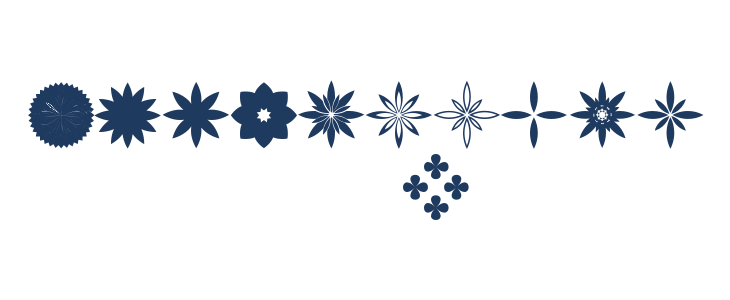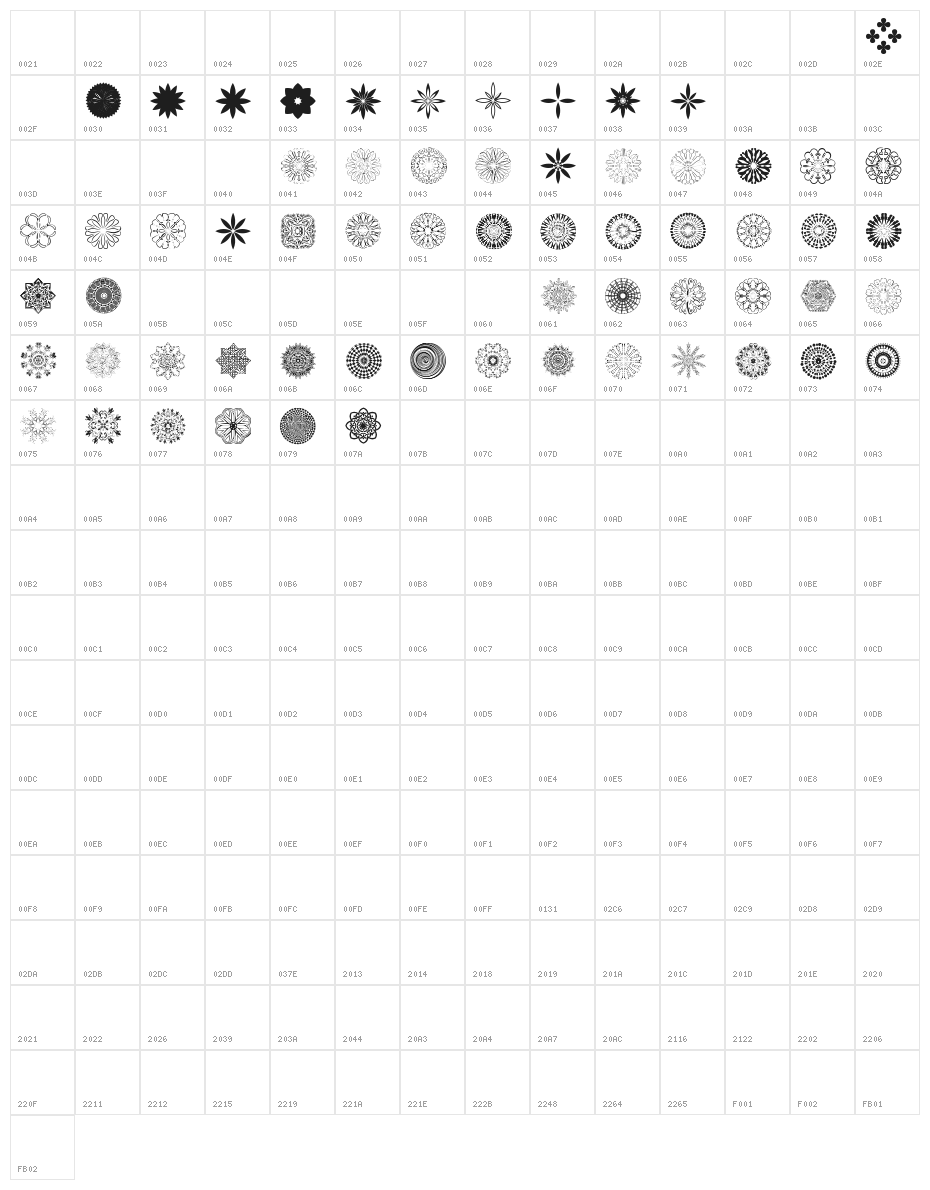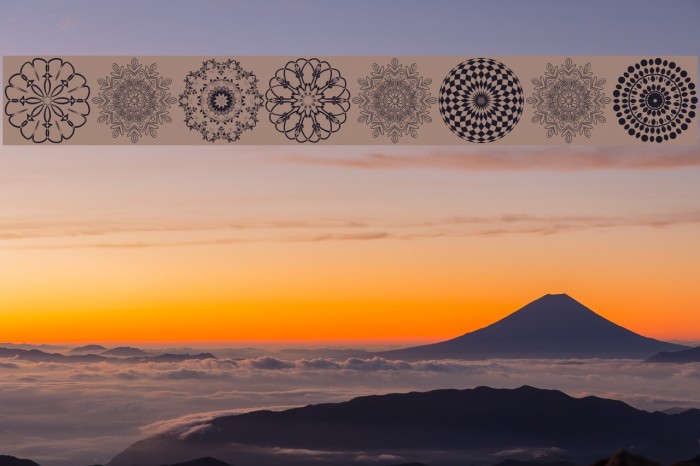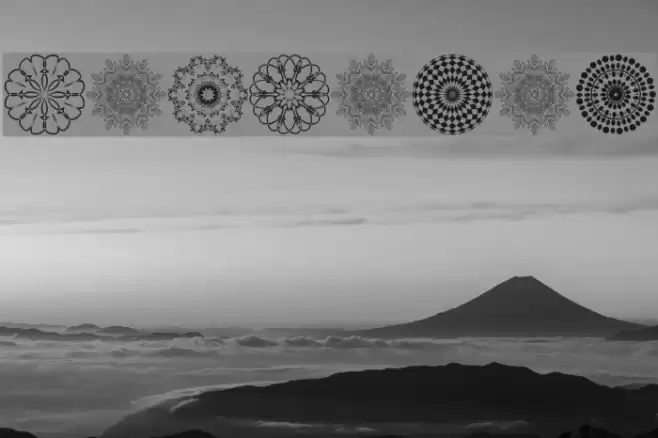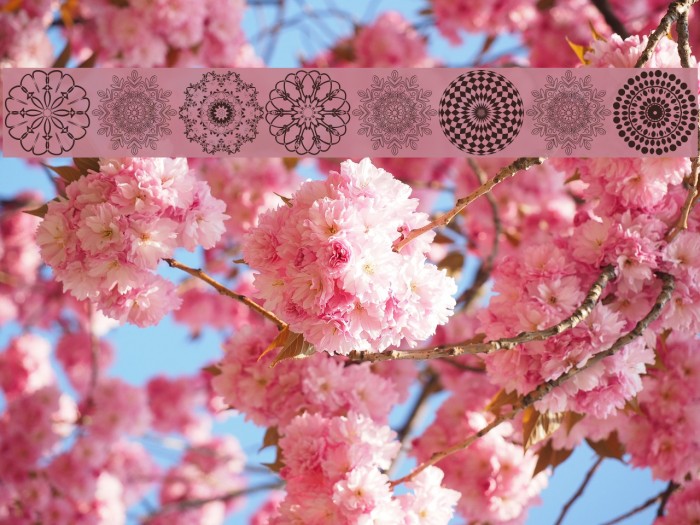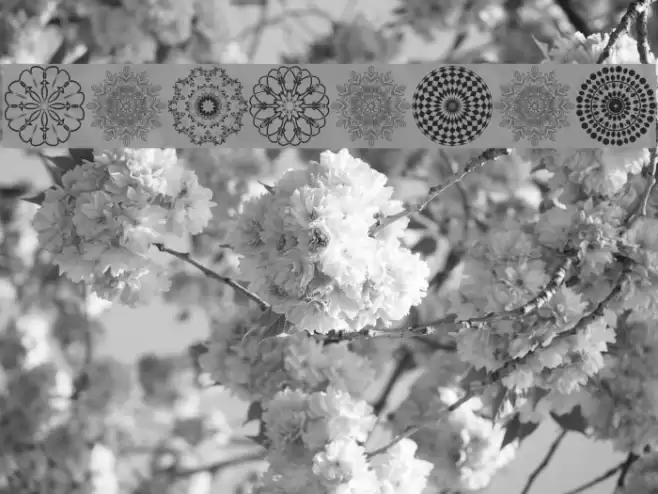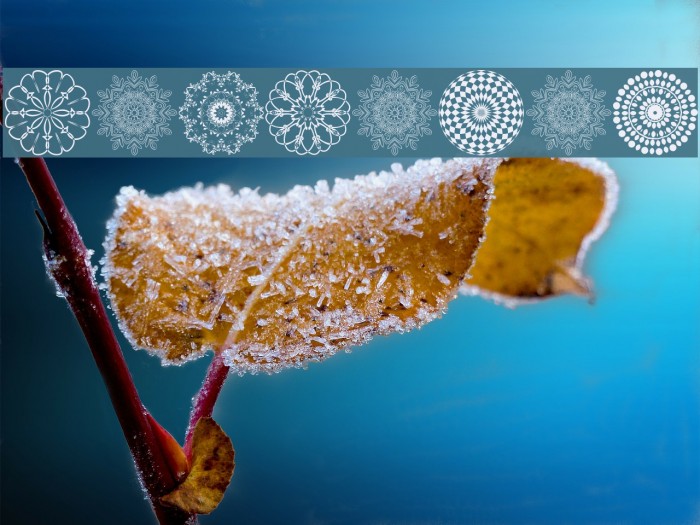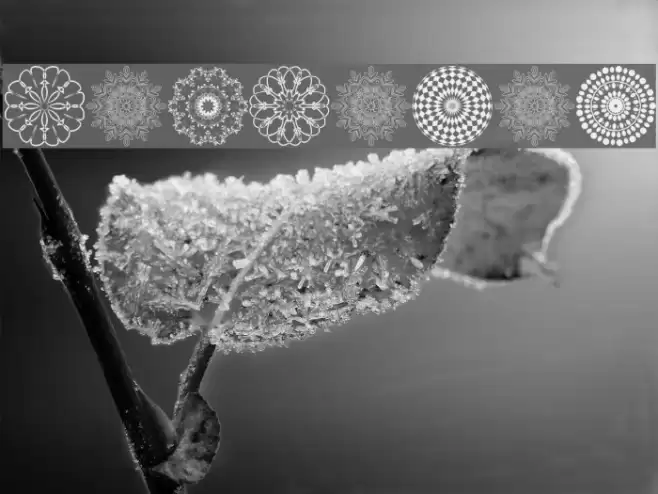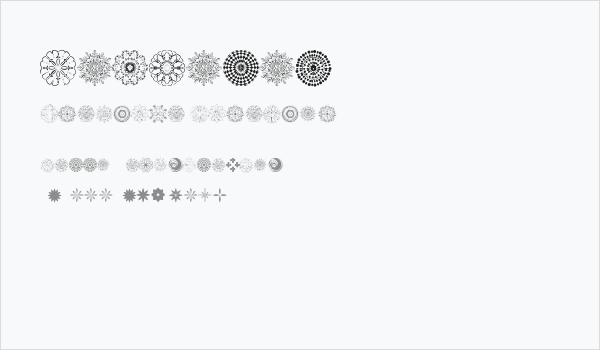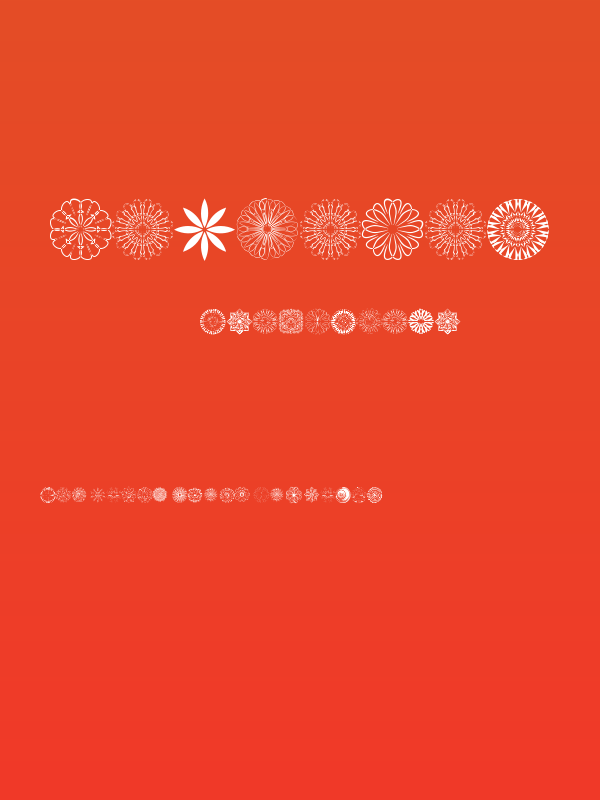
Mandalas Font
Mandalas Description
A decorative display set featuring a wide variety of intricate mandala and floral-inspired geometric symbols, ranging from highly detailed linework to bold, filled silhouettes. The glyphs are circular or radial in structure, with symmetrical, ornamental patterns.
| Overall Style | Decorative, Ornamental, Artistic |
| Use Case | Logos, Decorative elements, Borders, Art projects |
| Proposed Projects | Ideal for decorative borders, invitations, spiritual or wellness branding, coloring books, textile patterns, and digital art embellishments. |